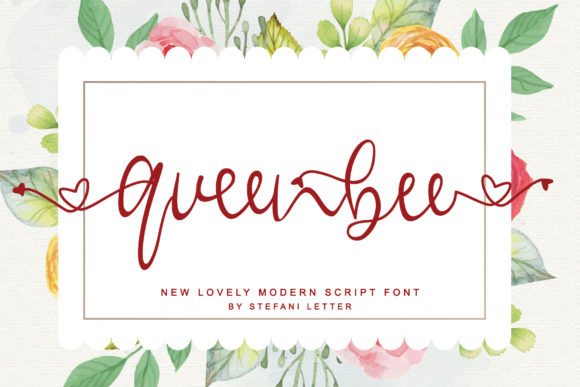
Venture into an enchanting realm where calligraphy and charm intertwine, introducing Queenbee Font, the script font that sparks your imagination and sets your creativity ablaze. A visual symphony of elegant strokes and heart-fluttering characters, Queenbee is more than just a font; it's an expression of your vibrant personality. Experience the allure of handwritten artistry, crafted with meticulous care by Stefani Letter, and embark on a journey where beauty meets functionality.
Immerse yourself in a world of endless possibilities, where Queenbee's graceful curves and playful heart motifs breathe life into your digital creations. Design wedding invitations that exude a timeless elegance, leaving a lasting impression on your guests. Elevate your stationary art with a touch of whimsy, capturing the essence of heartfelt sentiments. Create social media posts that radiate warmth and captivate your audience, leaving an unforgettable mark in the digital realm. Spread joy and love through charming greeting cards that carry your heartfelt messages with a touch of playful charm.
Queenbee Font is not just a collection of letters; it's an ode to self-expression and creativity. It's the perfect font for those who seek to add a touch of magic and personality to their digital creations. With its enchanting style and captivating presence, Queenbee transforms ordinary words into works of art. Join the growing community of designers, bloggers, and creatives who have embraced Queenbee's charm, and elevate your digital presence to new heights.